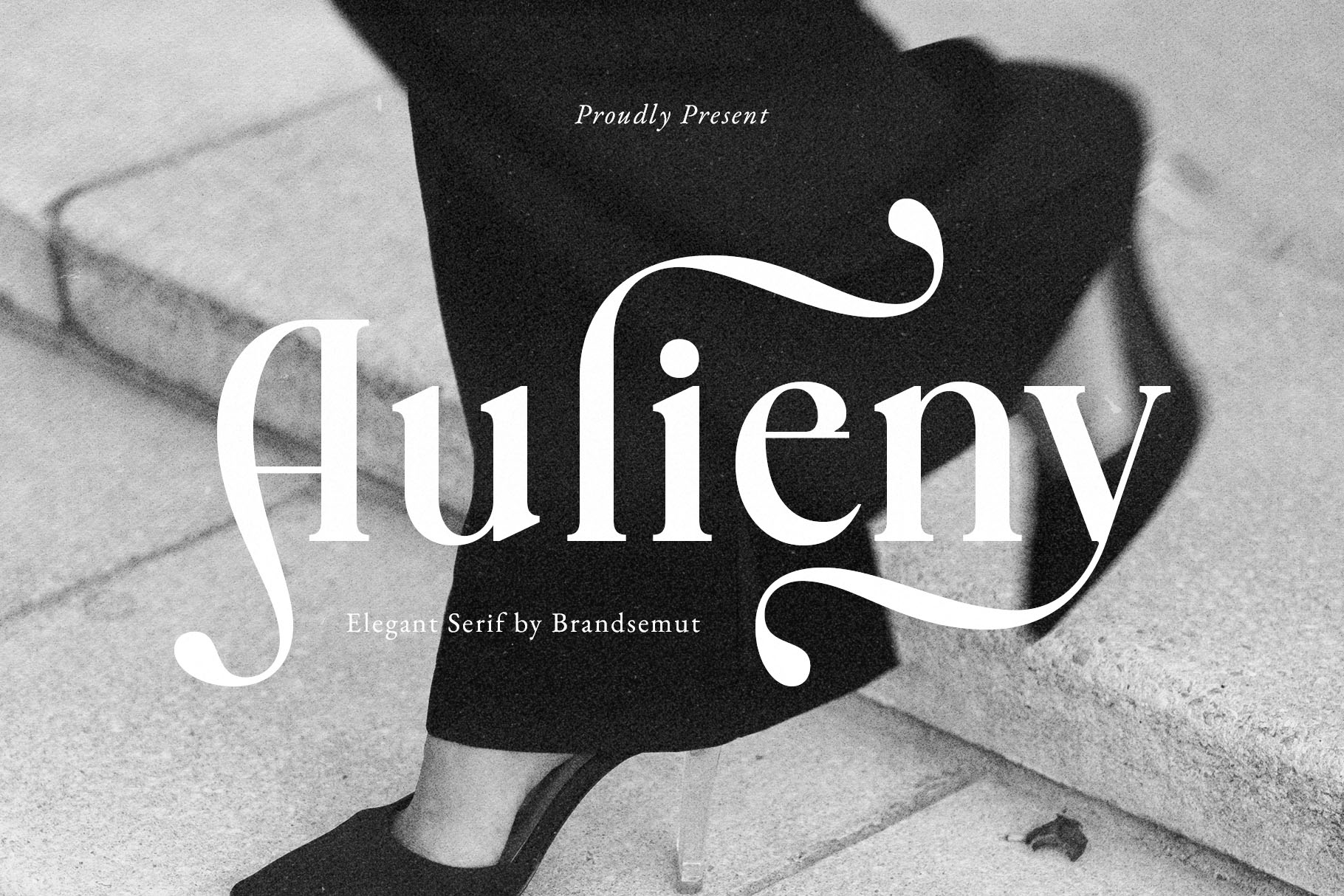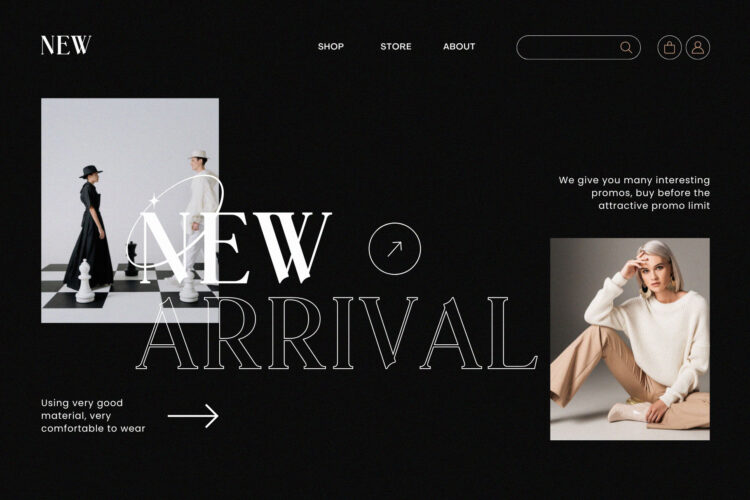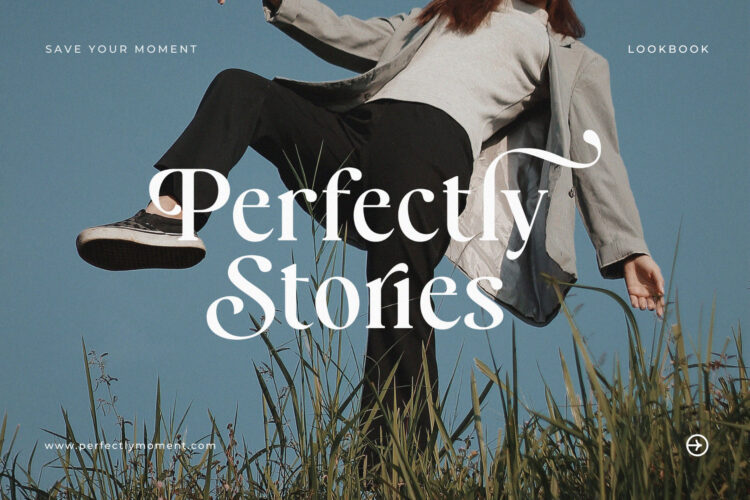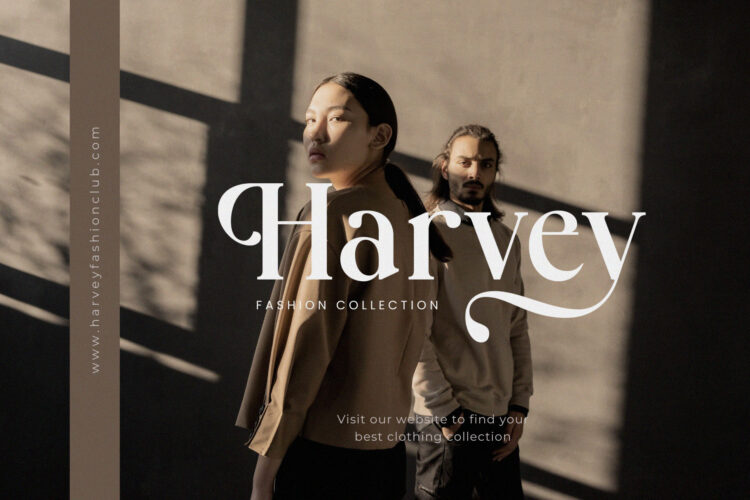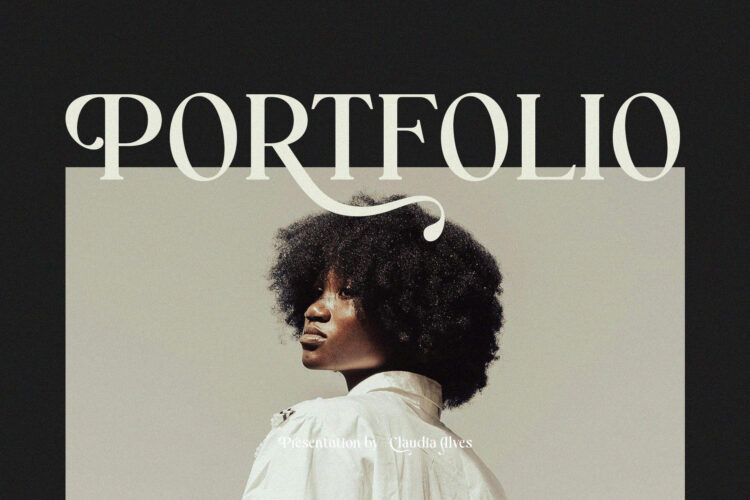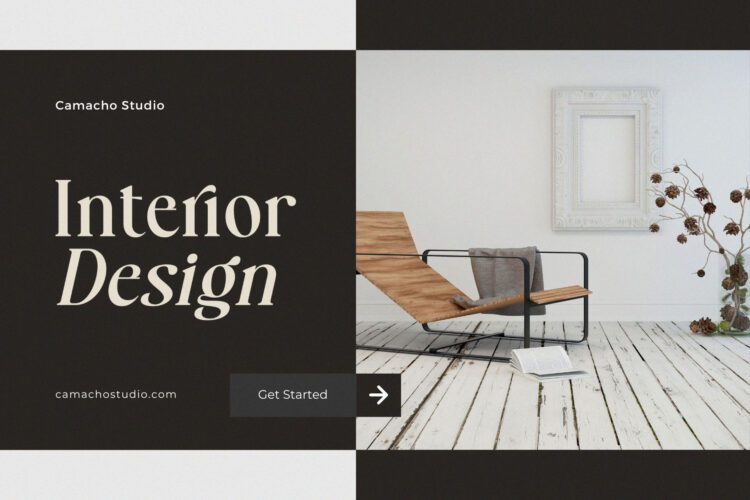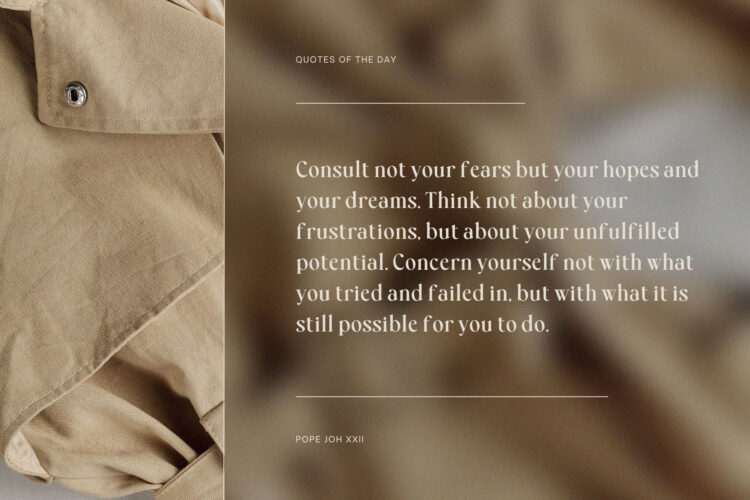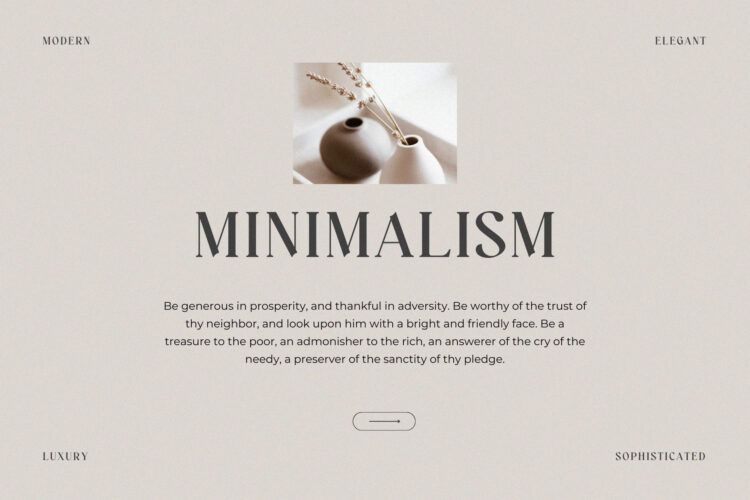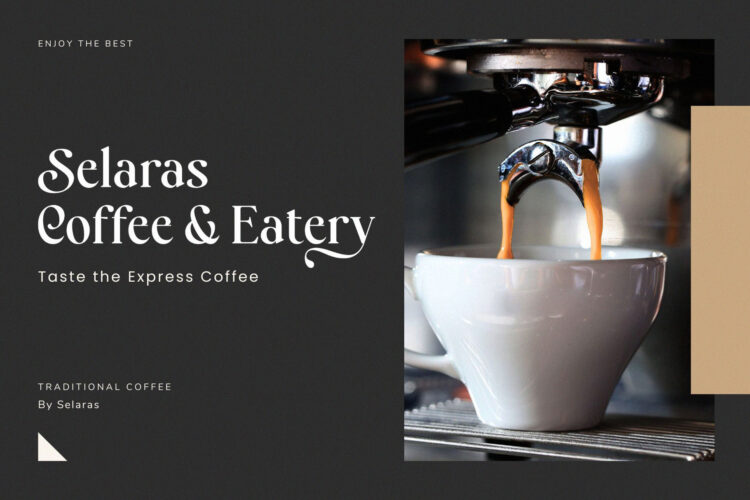
Introducing Aulieny Elegant Serif.
Aulieny is a elegant, classy and modern display serif, best used as a display for headings, logos, branding, magazines, product packaging and invitations. Aulieny equipped with Ligature and many Alternates and come with clean lines and smooth curves give any project an extra touch of class.